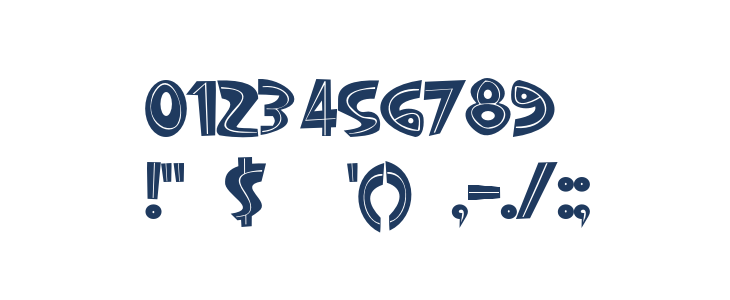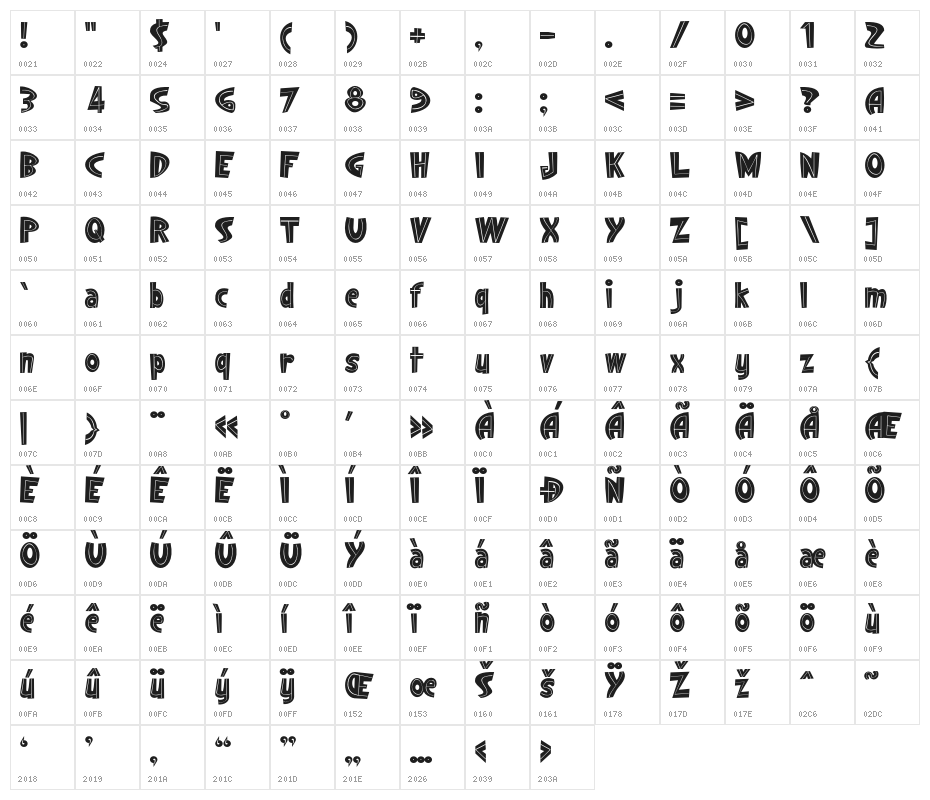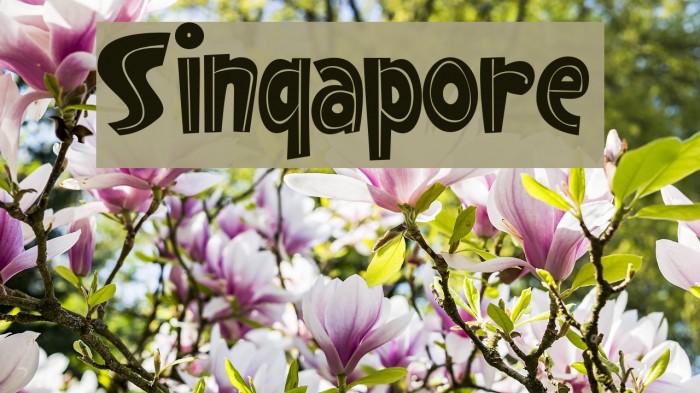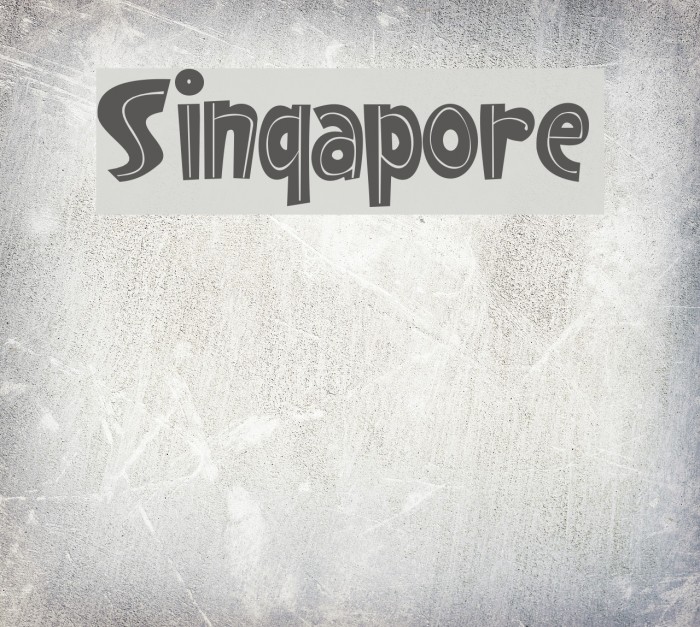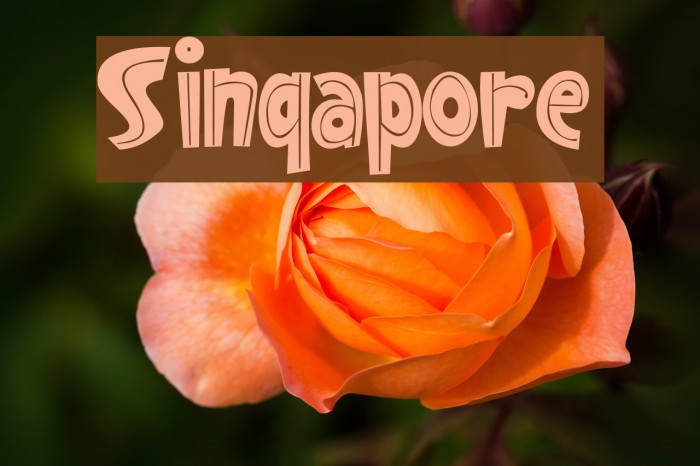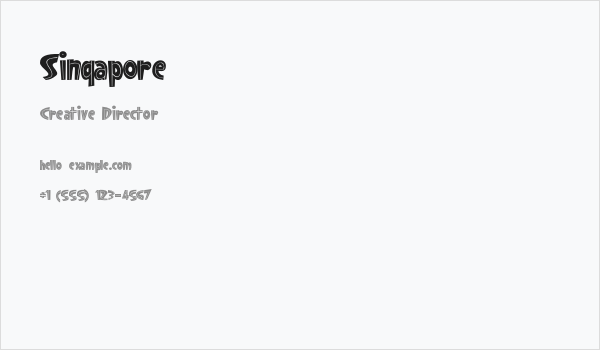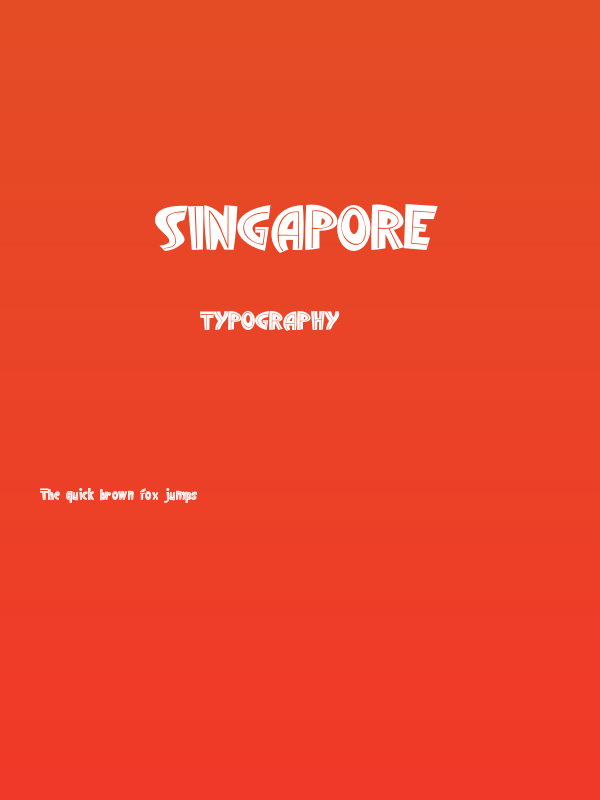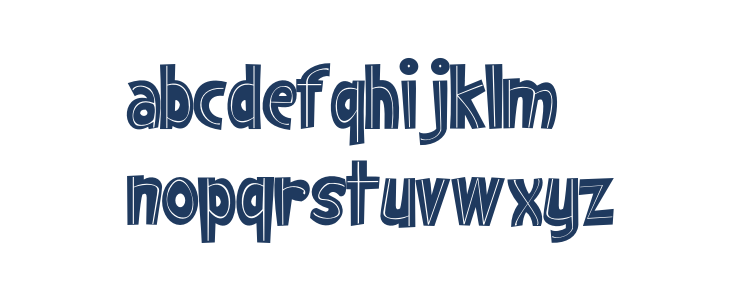
Singapore Font
Singapore Description
This font features a bold and playful design with a distinctively quirky and artistic flair. The characters are thick and have a slightly irregular shape, giving them a dynamic and lively appearance. The strokes are bold with a high contrast, and the letters have a unique, almost cartoonish style that makes them stand out. The font is decorative and has a fun, informal vibe, making it suitable for creative and eye-catching designs. The characters are well-spaced, ensuring readability while maintaining their whimsical charm.
| Overall Style | Playful and Artistic |
| Proposed Projects | Ideal for children's books, comic strips, playful branding, event posters, and creative advertising. |